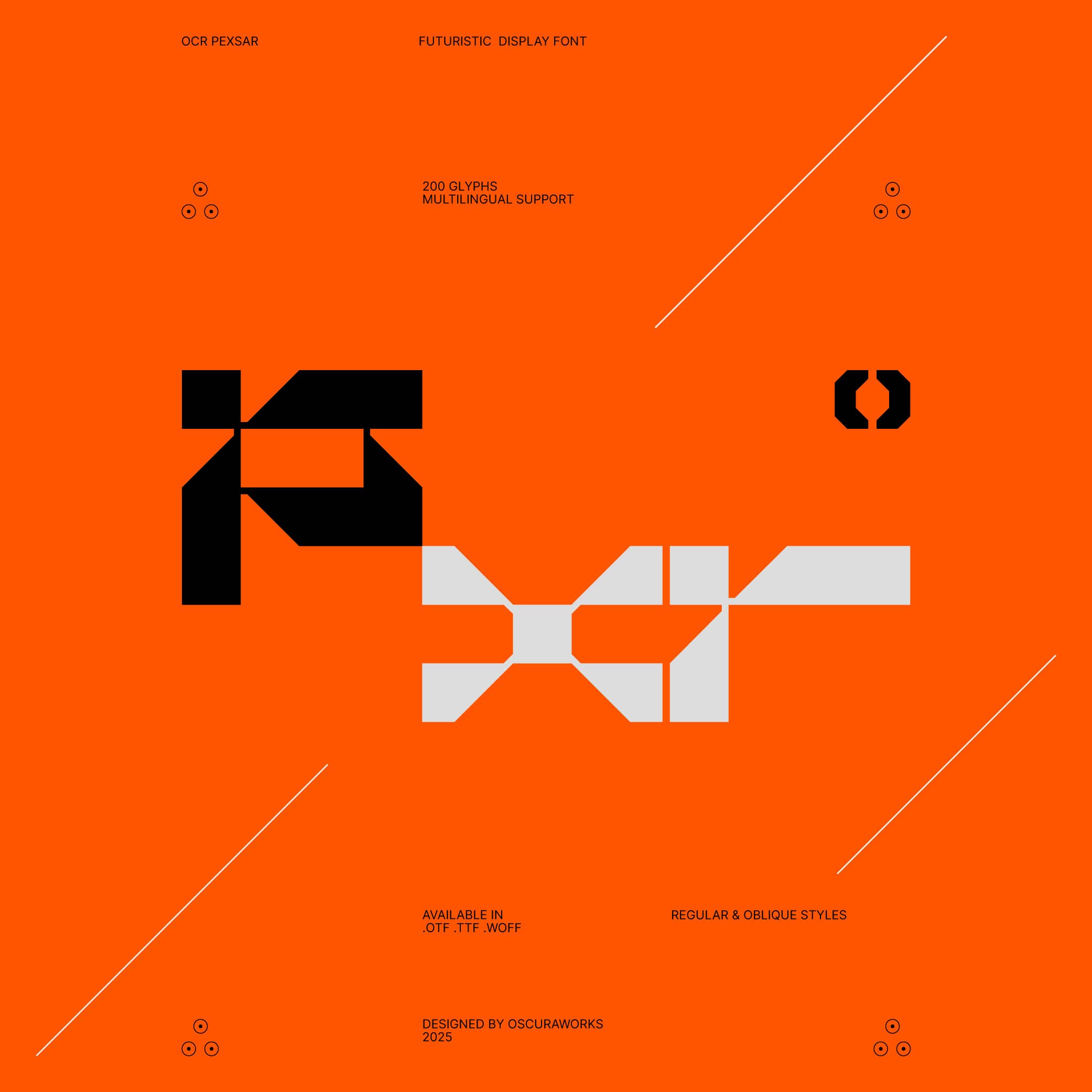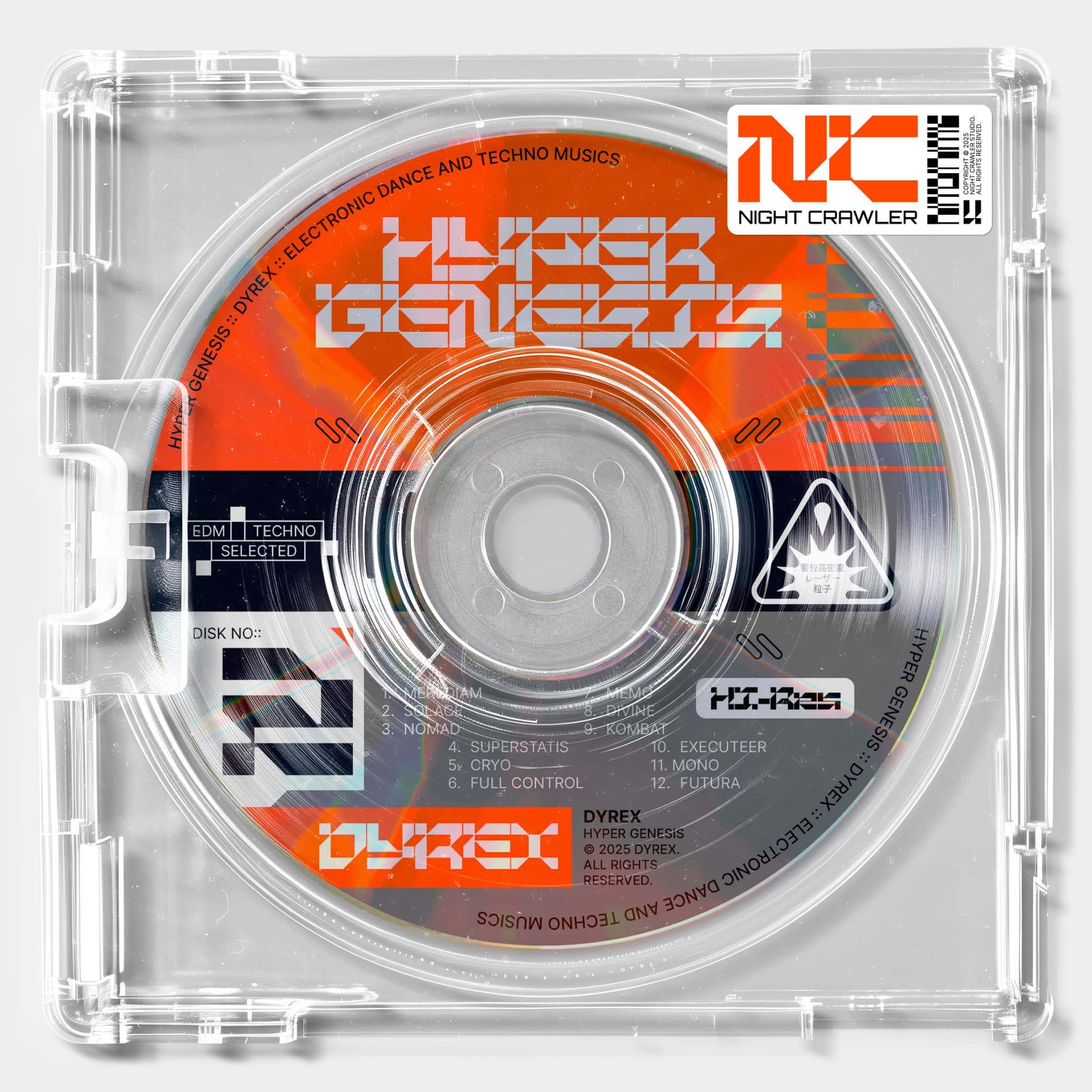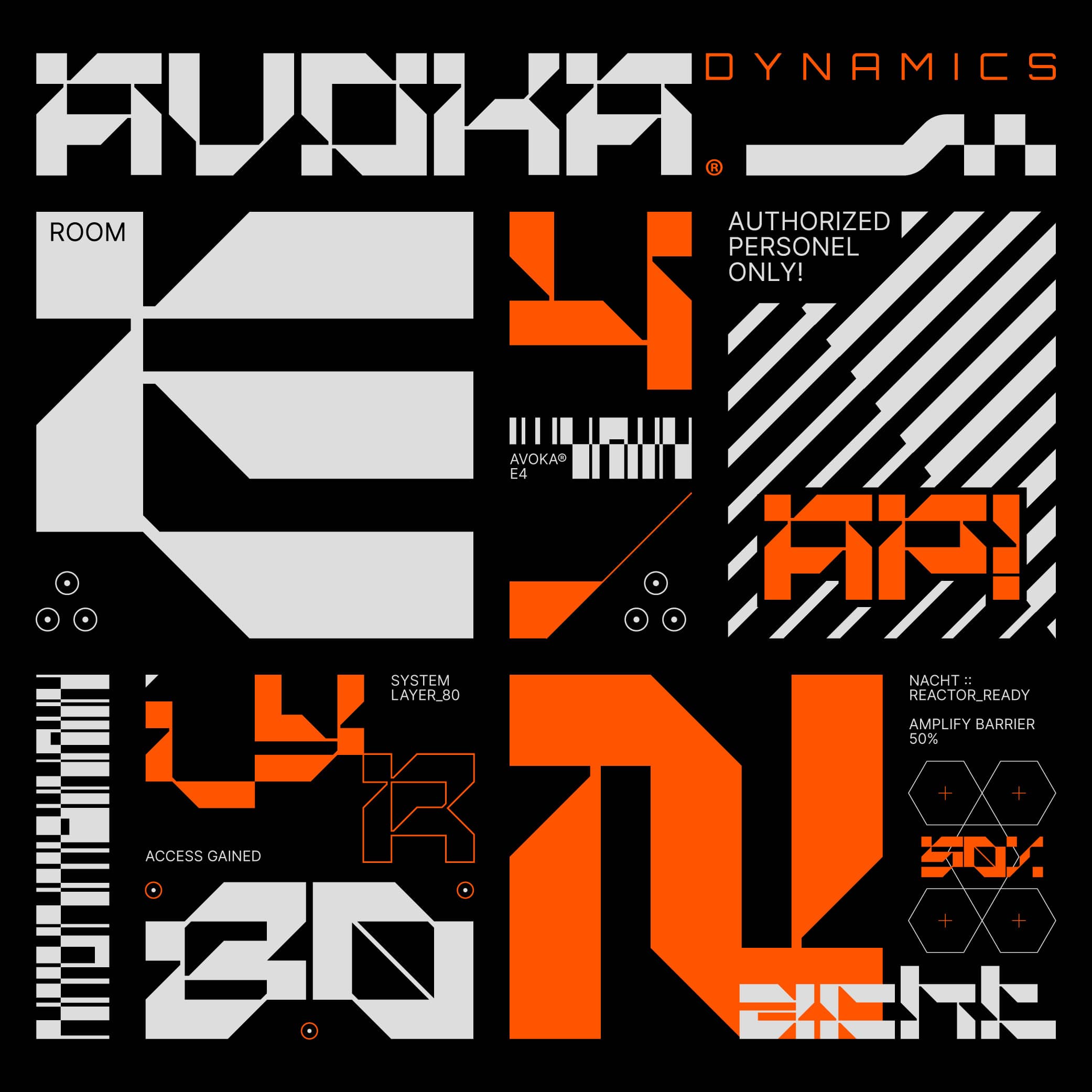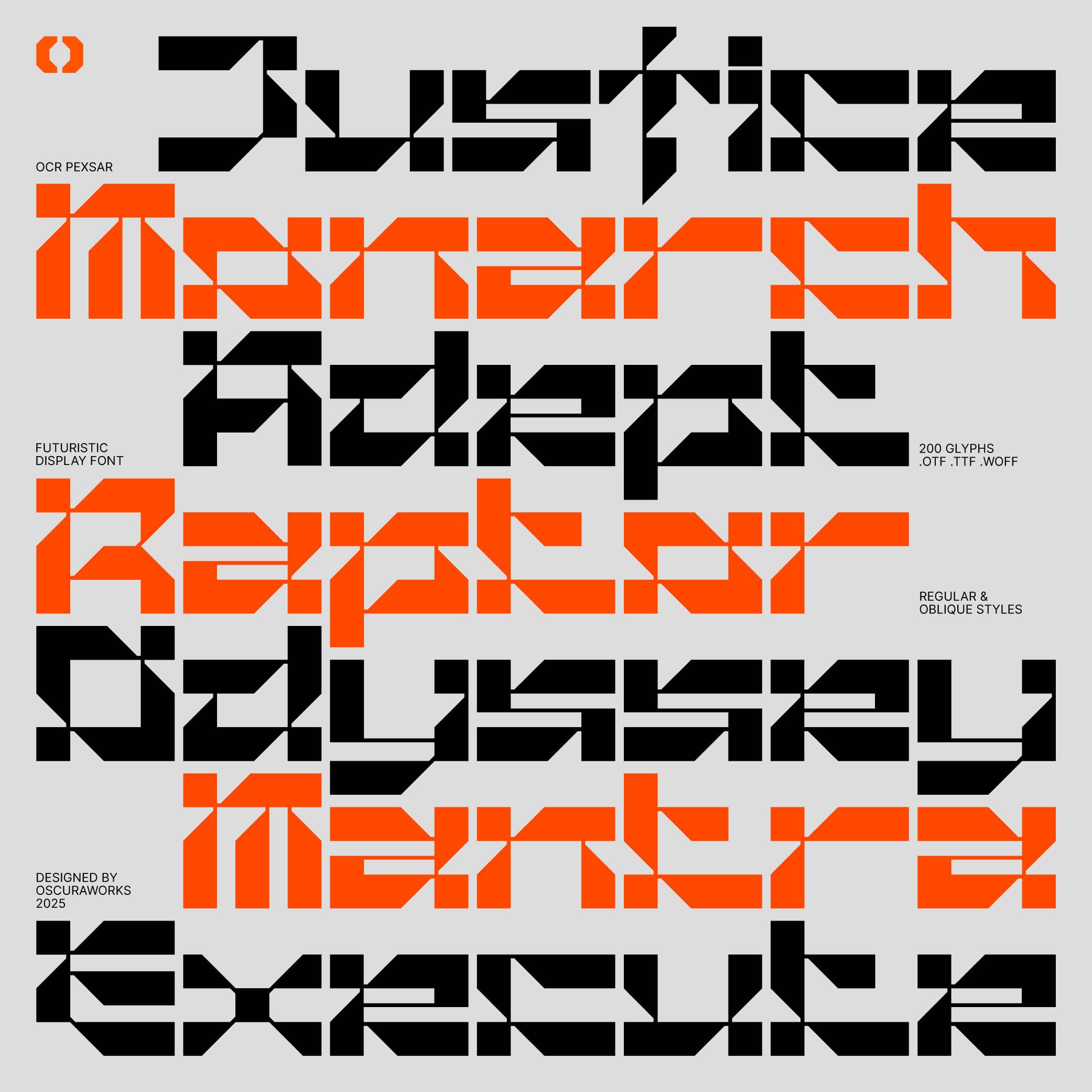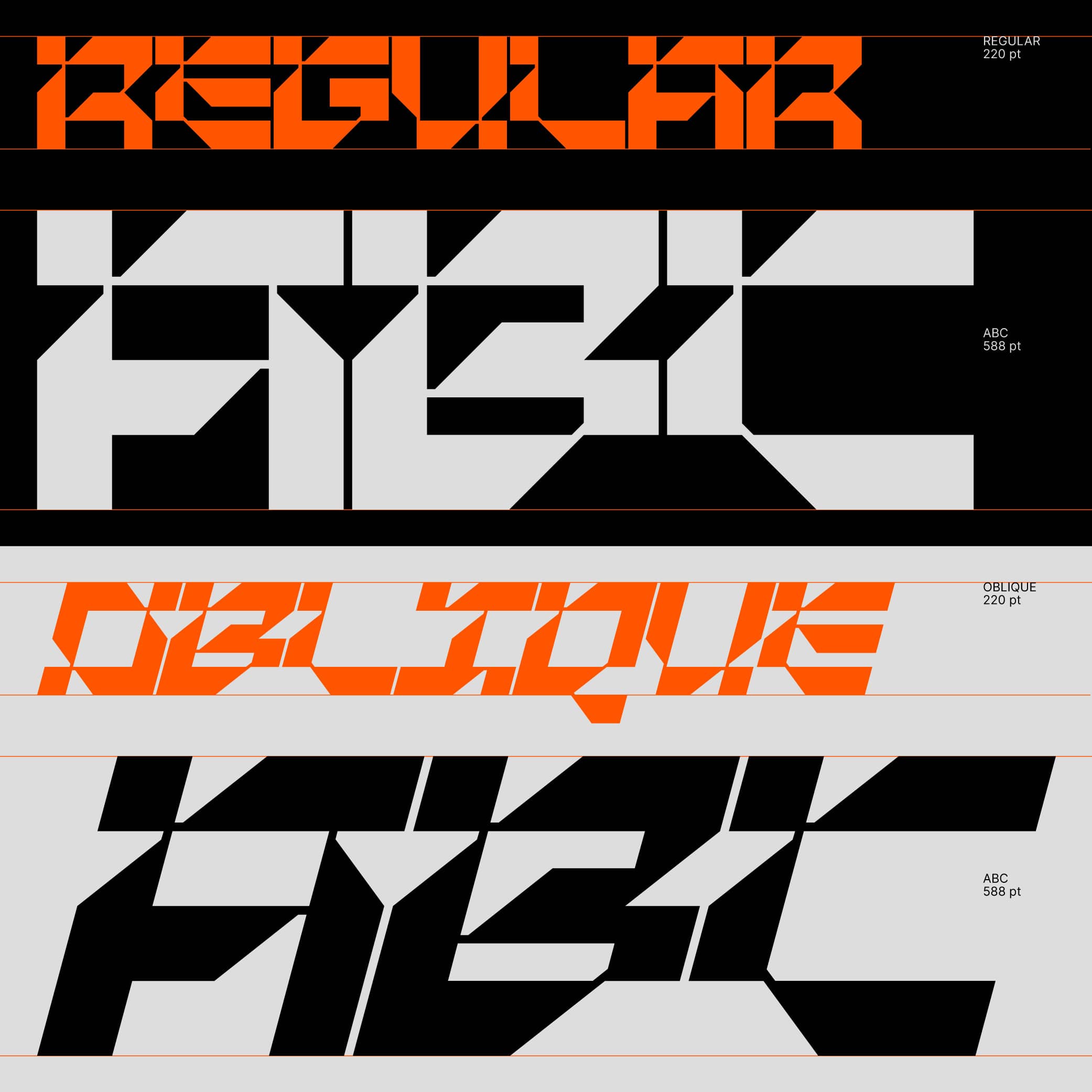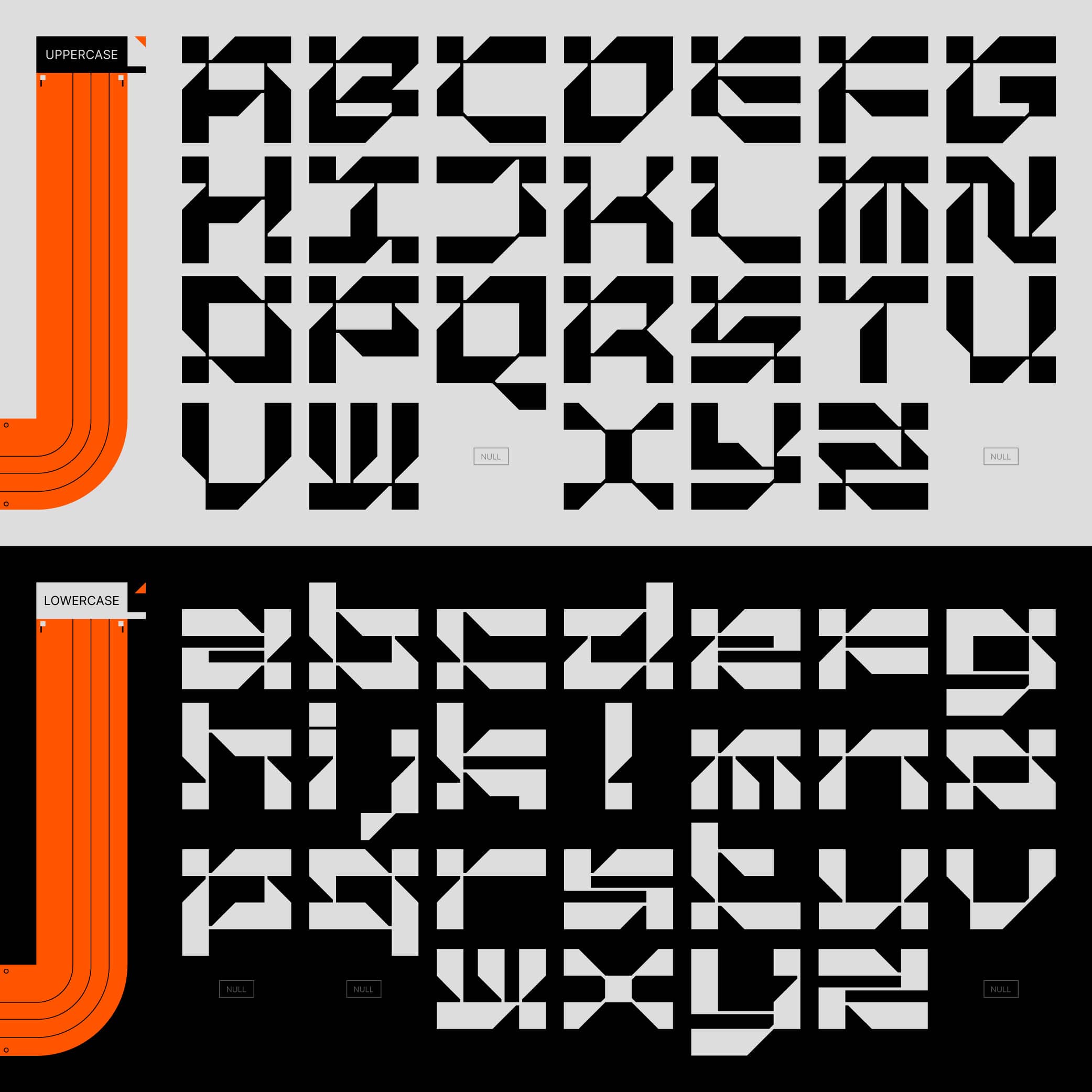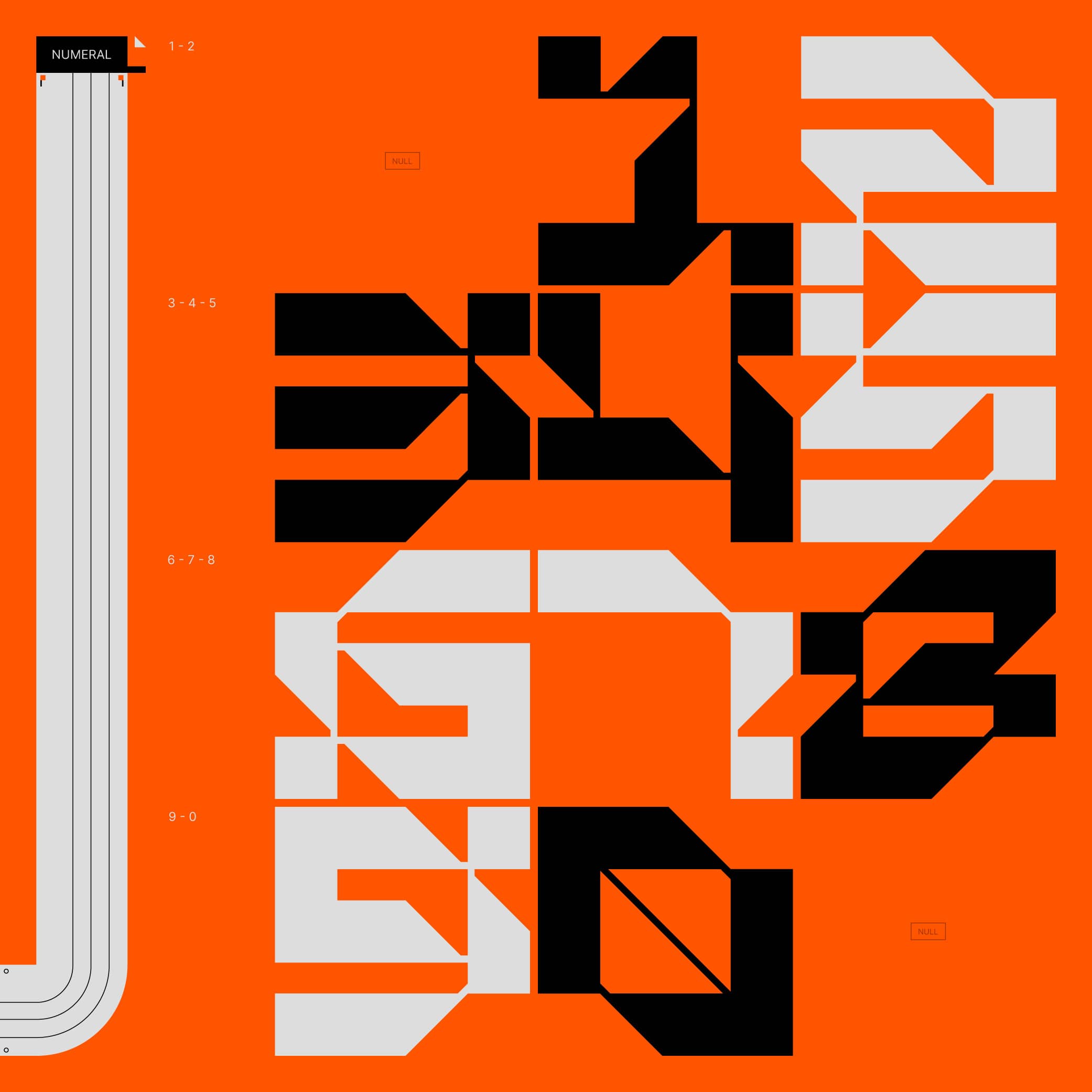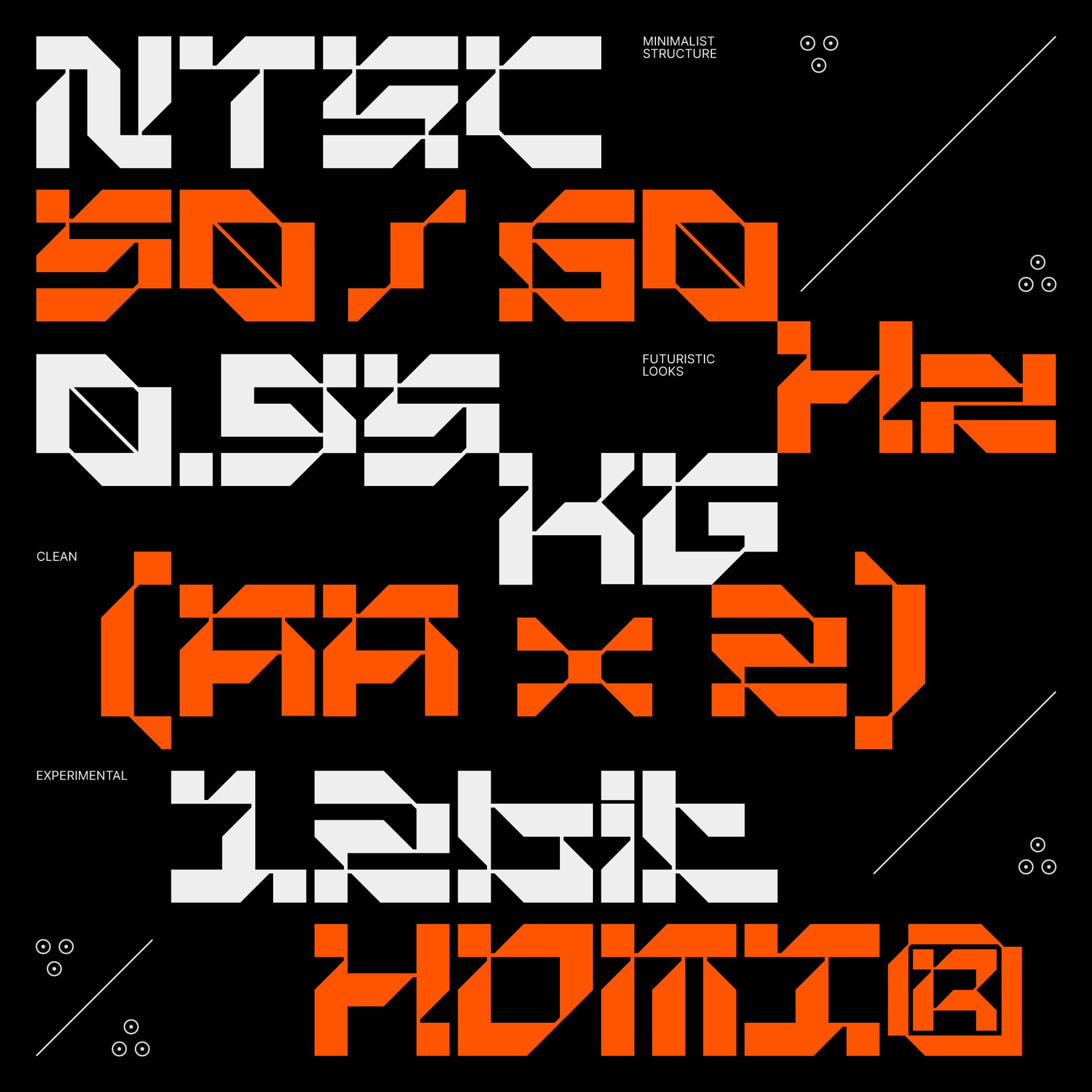
OCR Pexsar is a futuristic display typeface crafted from bold geometric shapes, sharp diagonal cuts, and refined connecting strokes. With a clean yet experimental structure, it’s ideal for editorial layouts, bold branding, posters, and digital visuals.